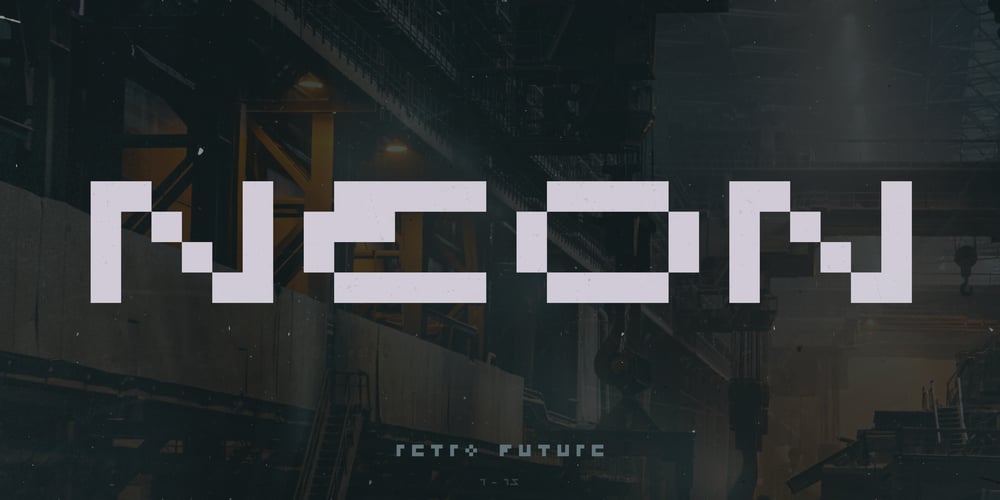
ND Raster Neon
ND Raster Neon font
ND Raster Neon Font Family was designed by Wolf Boese and published by NeueDeutsche. ND Raster Neon contains 4 styles and family package options. A captivating and futuristic font inspired by the iconic worlds of The Matrix, Terminator, and Blade Runner. Embrace the enigmatic allure of the future as each character pulsates with neon energy, unleashing possibilities for cybernetic titles, gaming interfaces, logos, and more. Step into the neon-laden realms of ND Raster Neon and ignite your designs with a touch of cybernetic mystique.